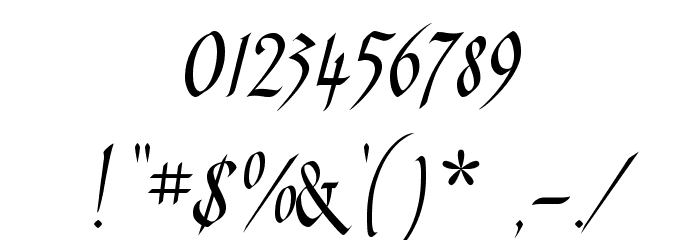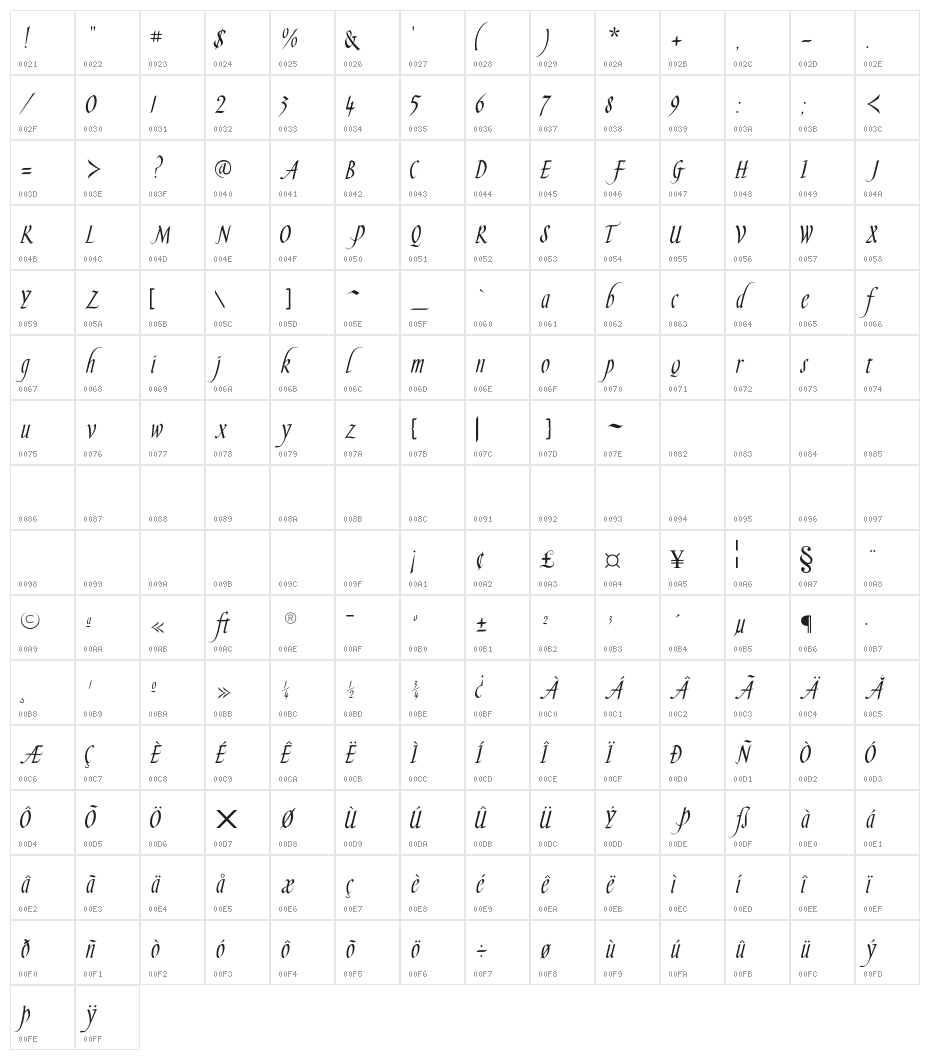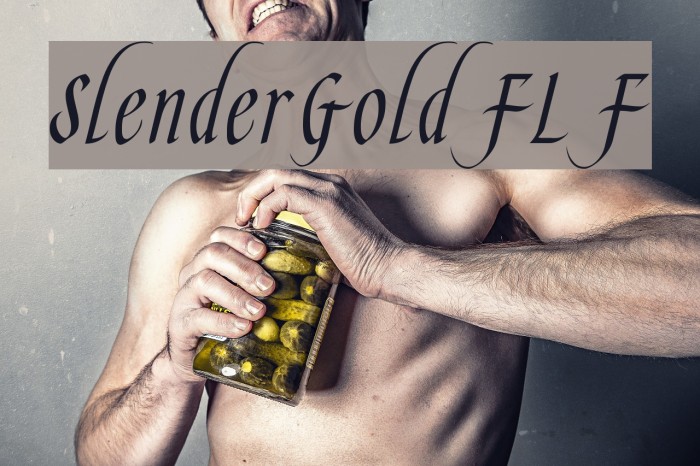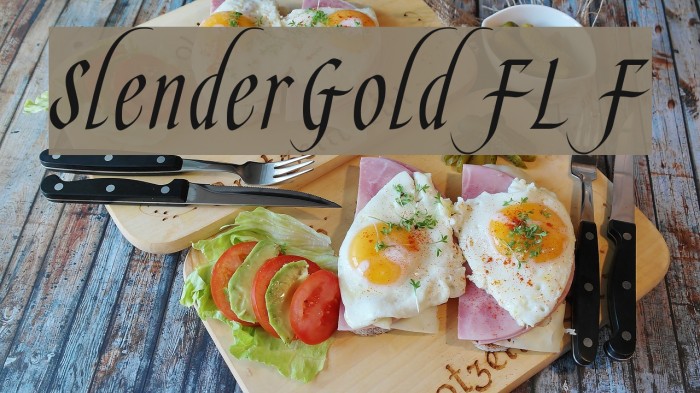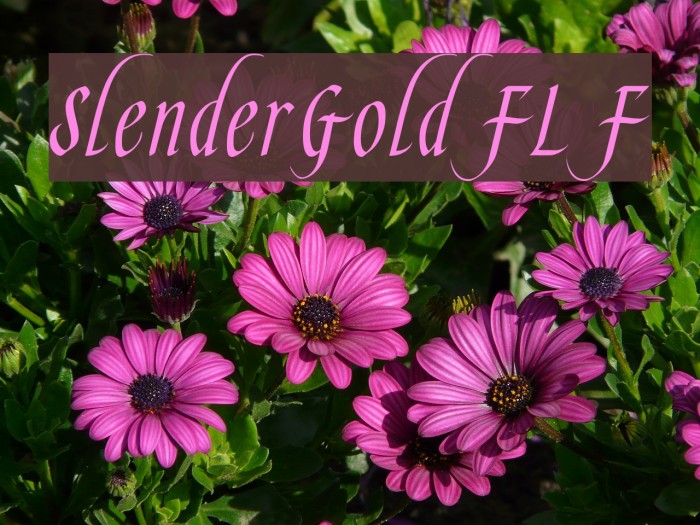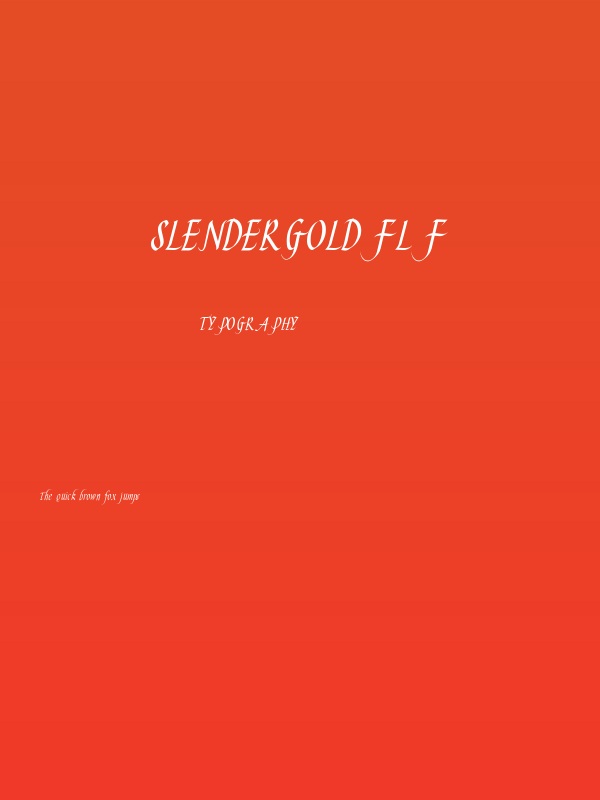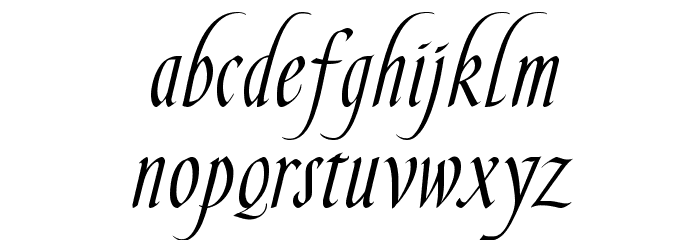
SlenderGoldFLF Font
SlenderGoldFLF Description
This font features an elegant and flowing script style, characterized by its slender and elongated letterforms. The uppercase letters exhibit a graceful, sweeping motion with high contrast between thick and thin strokes, giving it a sophisticated and refined appearance. The lowercase letters maintain a consistent style, with smooth curves and delicate lines that enhance the overall elegance. The numerals are designed to complement the letters, maintaining the same slender and stylish aesthetic. Special characters are thoughtfully integrated, ensuring they match the font's overall style. This font is ideal for projects that require a touch of elegance and sophistication.